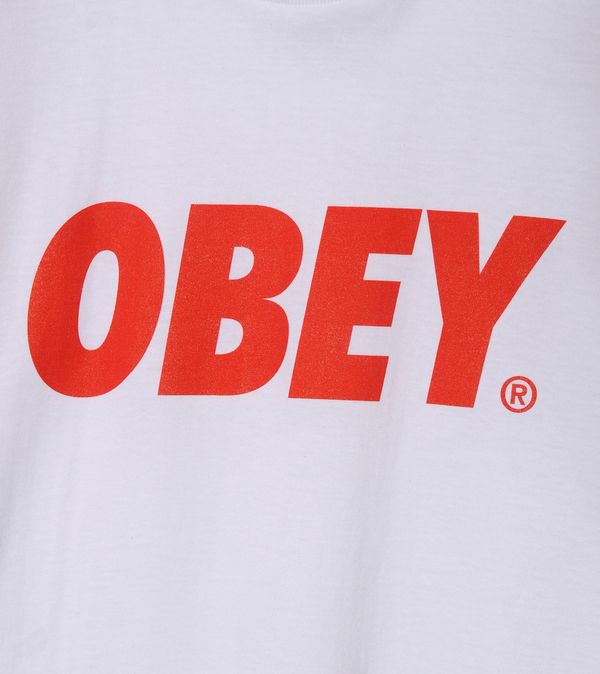
Obey Clothing Font
Obey Clothing Font - The obey font family is available at azfonts. Web what font does obey use in this clothing product? A mix of progressive design in apparel and classic streetwear. Download fonts from the obey family. Click to find the best 464 free fonts in the clothing style. Every font is free to download! Web the obey font is 'futura std condensed extra bold oblique', with tight kerning. May 12, 2020 at 02:58. Archive of freely downloadable fonts. Browse by alphabetical listing, by style, by author or.
The official obey clothing website. Web the obey font is 'futura std condensed extra bold oblique', with tight kerning. Every font is free to download! Web looking for clothing fonts? Download fonts from the obey family. The obey font family is available at azfonts. Web what font does obey use in this clothing product? A mix of progressive design in apparel and classic streetwear. Browse by alphabetical listing, by style, by author or. May 12, 2020 at 02:58.
A mix of progressive design in apparel and classic streetwear. The official obey clothing website. The obey font family is available at azfonts. Click to find the best 464 free fonts in the clothing style. Web looking for clothing fonts? Web the obey font is 'futura std condensed extra bold oblique', with tight kerning. Download fonts from the obey family. Every font is free to download! May 12, 2020 at 02:58. Archive of freely downloadable fonts.
A mix of progressive design in apparel and classic streetwear. Web the obey font is 'futura std condensed extra bold oblique', with tight kerning. Every font is free to download! Click to find the best 464 free fonts in the clothing style. Browse by alphabetical listing, by style, by author or.
Web what font does obey use in this clothing product? Every font is free to download! The obey font family is available at azfonts. Download fonts from the obey family. May 12, 2020 at 02:58.
The official obey clothing website. Web the obey font is 'futura std condensed extra bold oblique', with tight kerning. Download fonts from the obey family. Every font is free to download! Web looking for clothing fonts?
The official obey clothing website. Web looking for clothing fonts? Download fonts from the obey family. Click to find the best 464 free fonts in the clothing style. Web the obey font is 'futura std condensed extra bold oblique', with tight kerning.
Download fonts from the obey family. The obey font family is available at azfonts. Click to find the best 464 free fonts in the clothing style. Web looking for clothing fonts? Web the obey font is 'futura std condensed extra bold oblique', with tight kerning.
Click to find the best 464 free fonts in the clothing style. Web looking for clothing fonts? The obey font family is available at azfonts. Archive of freely downloadable fonts. Web what font does obey use in this clothing product?
Web The Obey Font Is 'Futura Std Condensed Extra Bold Oblique', With Tight Kerning.
Web what font does obey use in this clothing product?